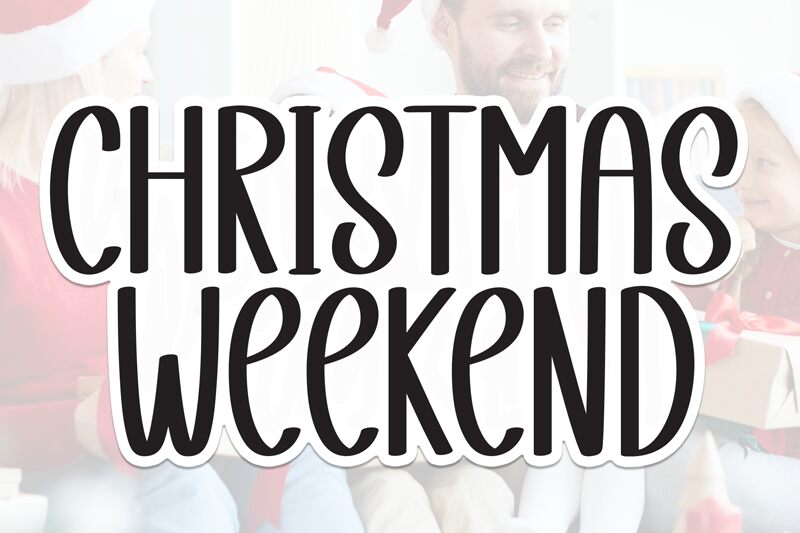
Christmas Weekend
Christmas Weekend font by Scratchones is a condensed handwritten font with whimsical, high-energy curves. Its letterforms communicate a decorative feel that connects to retro styles yet appeals in modern applications that require a celebration of joy. A truly special typeface for lifting your designs during the holiday period.
Applications of this free handwritten font include festive branding, seasonal packaging, fun t-shirt designs, social media visuals aimed at an audience looking for a spirit of adventure and playfulness; festive advertising; holiday cards; website design and print design among others. Its versatility makes it suited toward all varieties of art and design where imagination can run wild!